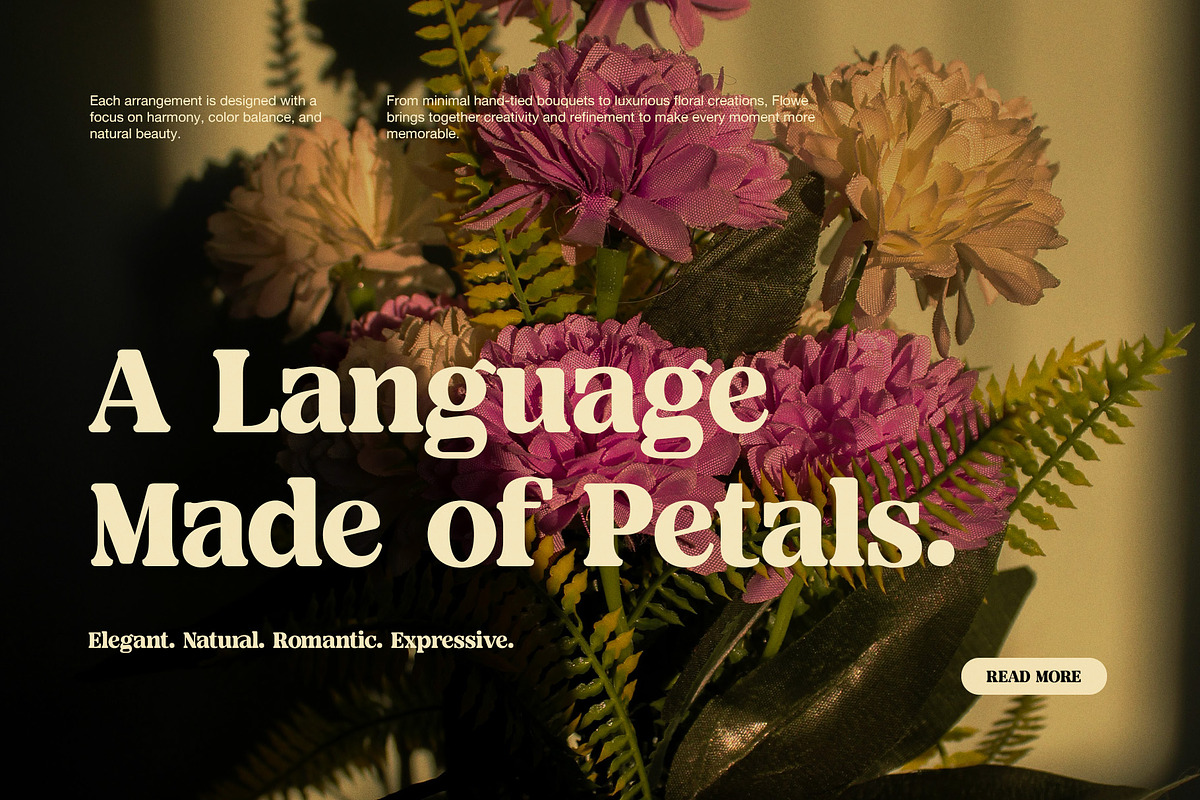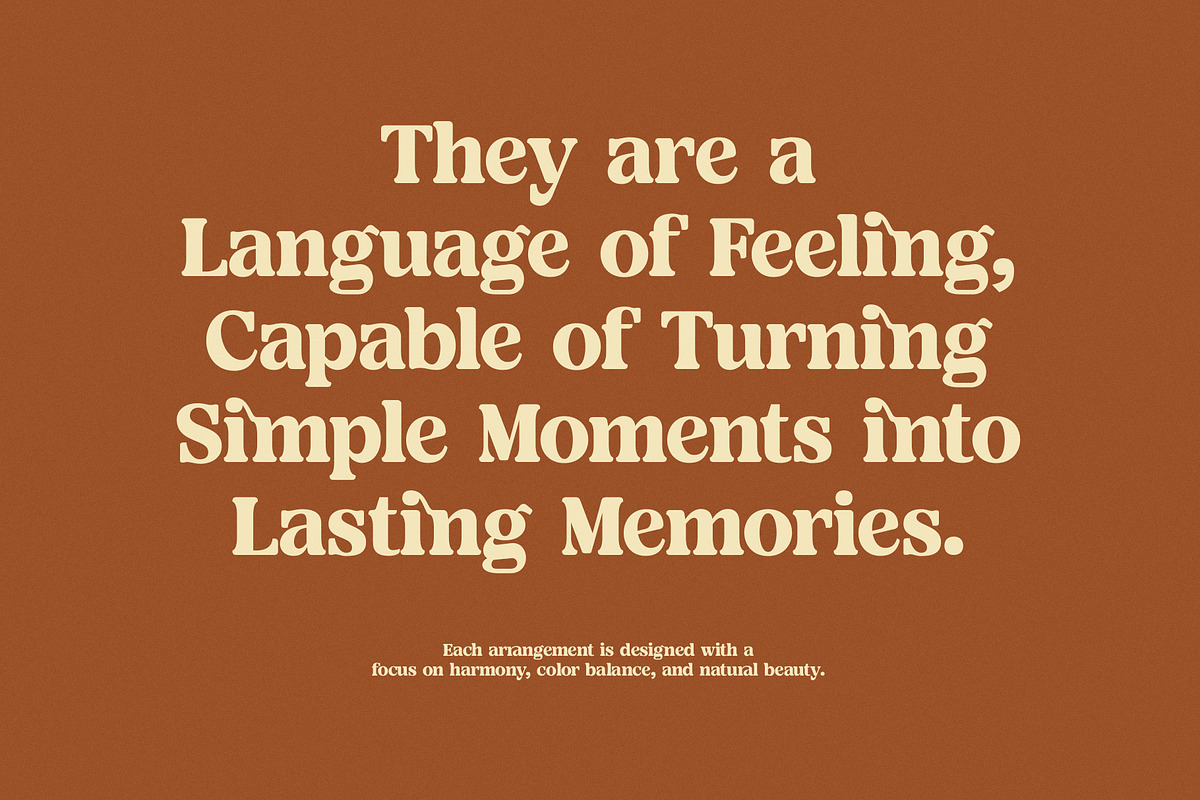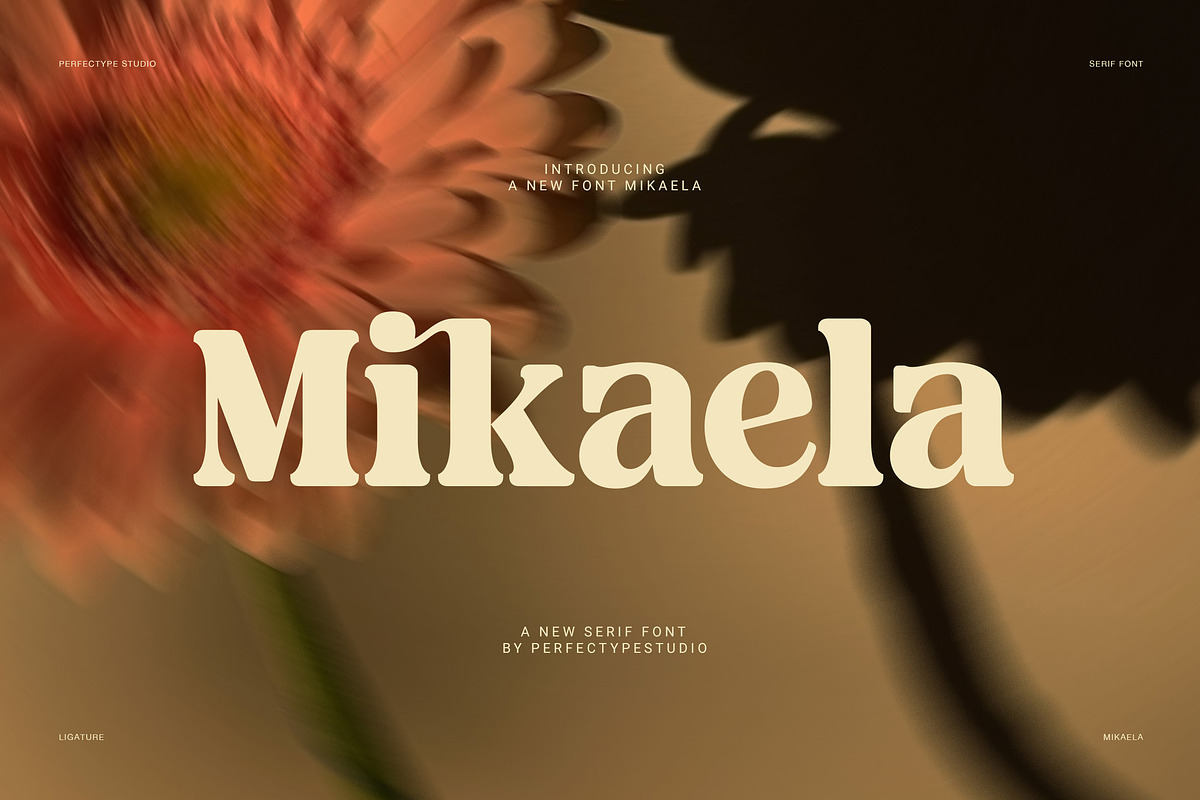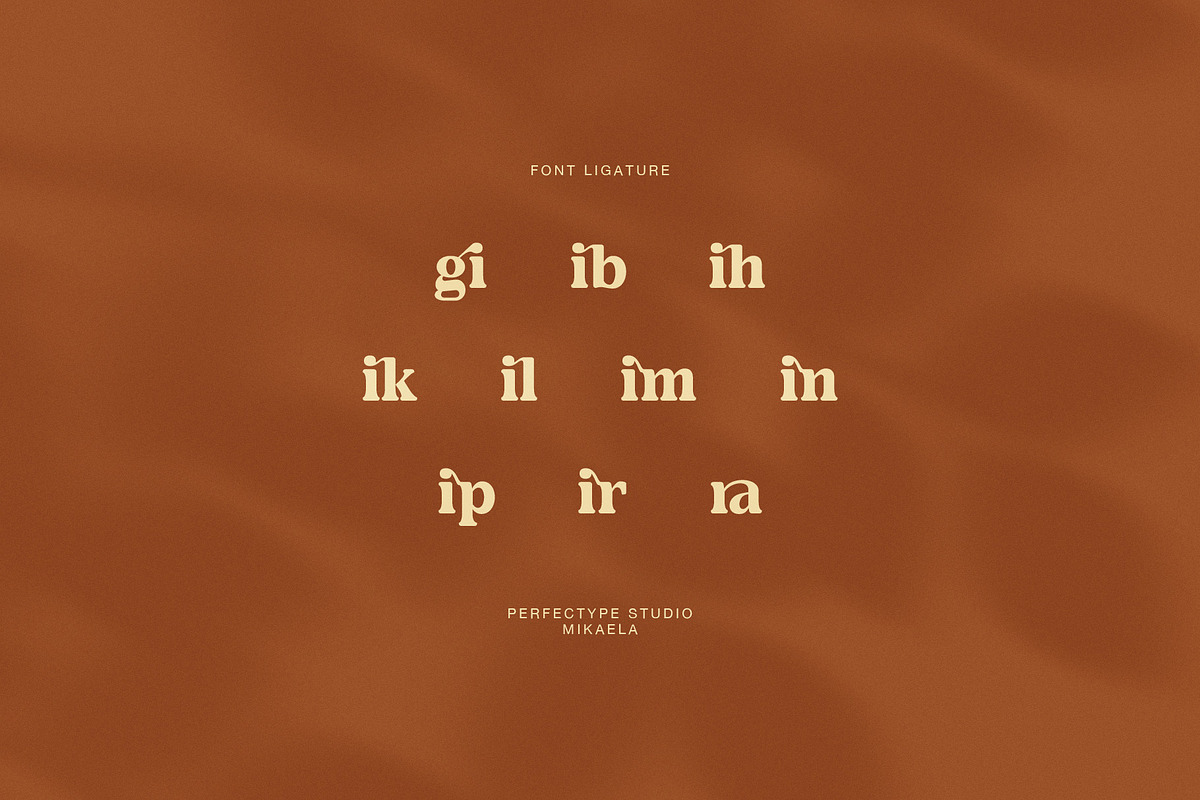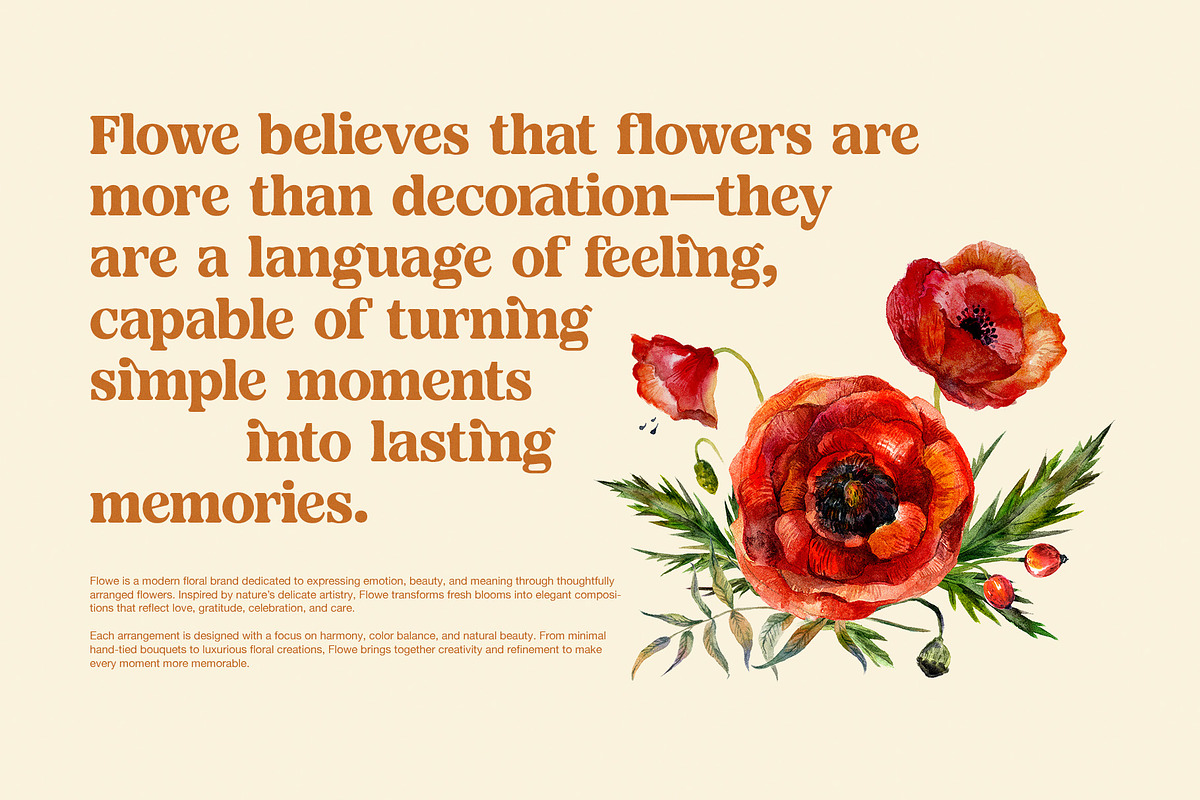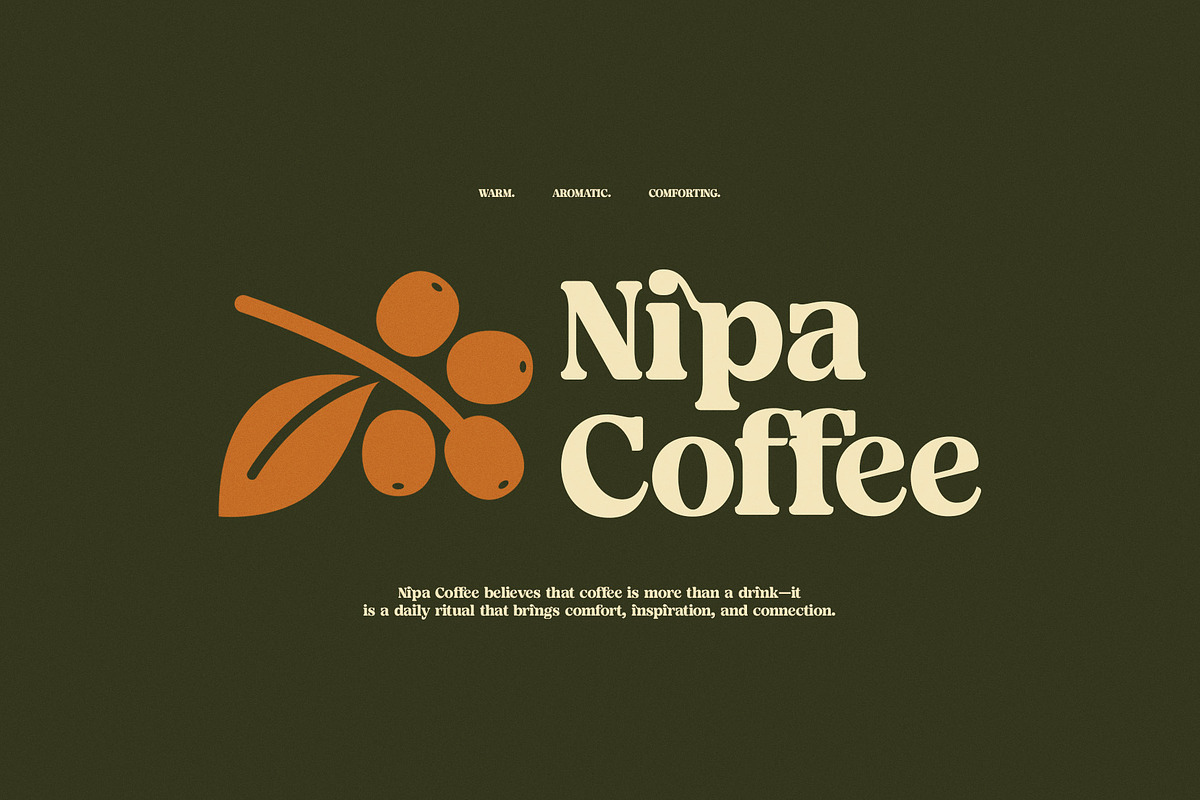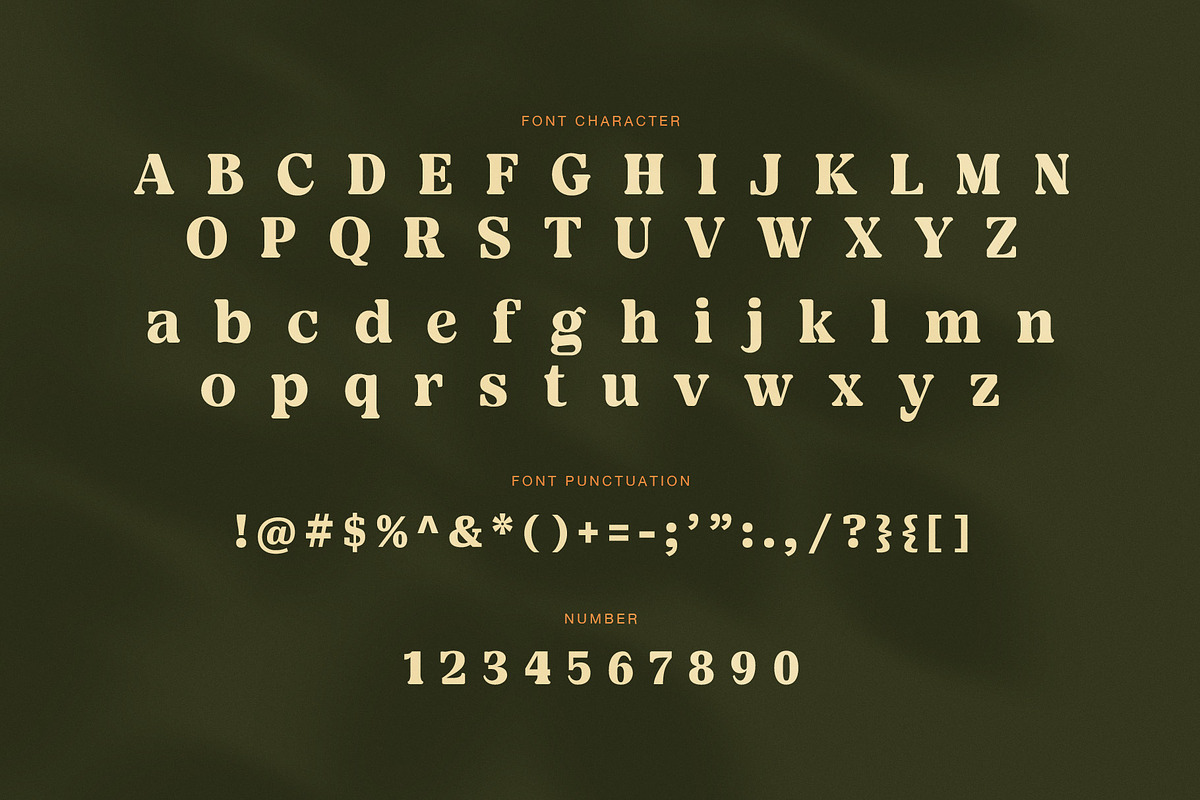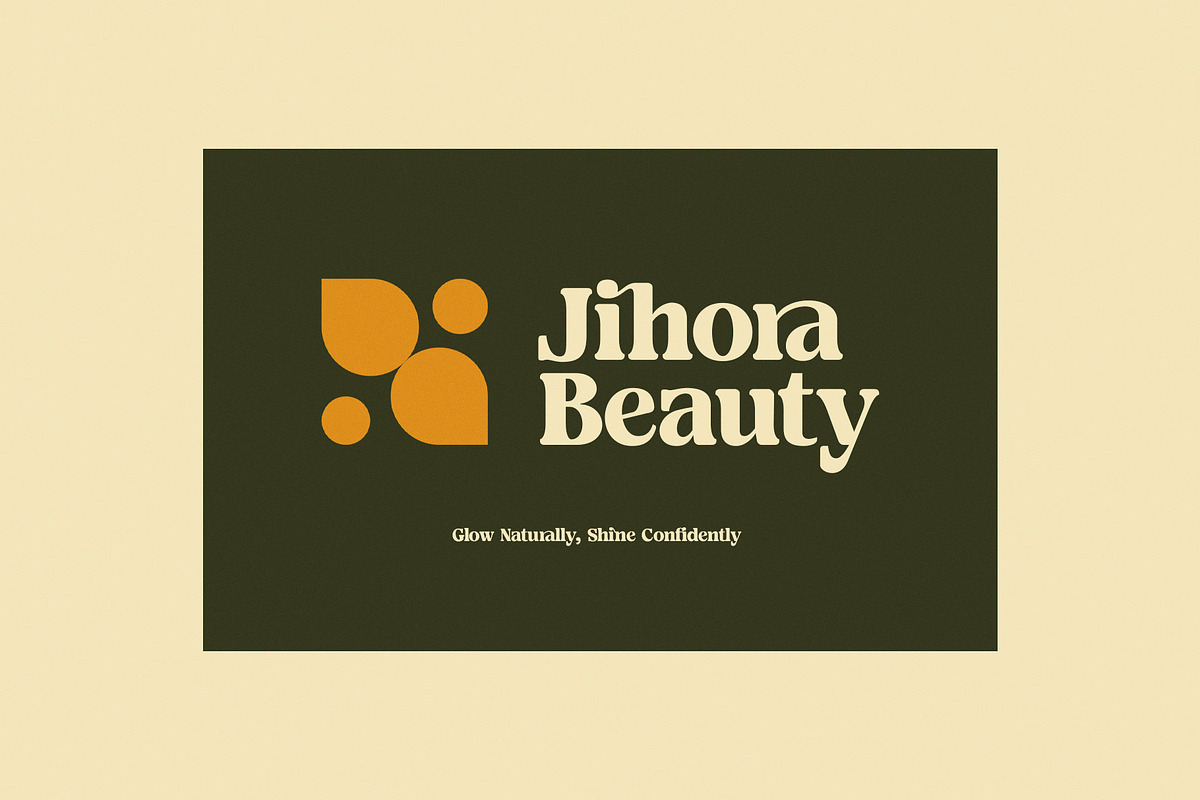
Mikaela Elegant Serif Font
Mikaela Elegant Serif Font is a bold and refined display serif with a warm, modern, and highly memorable character. It blends classic serif structure with soft curves, compact proportions, and tasteful ligature details. As a result, it feels elegant, friendly, and confident at the same time. This font is a strong choice for designers who want display text that looks stylish, readable, and full of charm.
The letterforms of Mikaela have a sturdy and balanced build. Unlike very thin editorial serifs, Mikaela uses fuller shapes and stronger strokes, so it feels more grounded and approachable. At the same time, the serif details keep it polished and premium. Moreover, the rounded counters and smooth joins add warmth, while the overall spacing keeps words clear in large settings. Because of that balance, Mikaela feels both classic and fresh.
Mikaela performs very well across many branding styles. In the preview layouts, it looks strong in coffee branding, floral themes, beauty identity, lifestyle visuals, and emotional quote compositions. Therefore, it suits both commercial and creative projects. It can look cozy and natural in one layout. Meanwhile, it can also feel clean, modern, and elegant in another. That range makes it very useful for branding systems that need both personality and flexibility.
Another key strength is its ligature support. The ligatures help headlines feel smoother and more custom, especially in short names and logo-style words. In addition, the punctuation and number set keep the font looking complete and polished. Because of this, Mikaela is ideal for logos, packaging, labels, posters, menus, social media graphics, and product branding.
Best uses for Mikaela
logo design
coffee branding
beauty branding
floral packaging
product labels
menu design
social media graphics
lifestyle branding
quote posters
display headlines
Why designers will love it
Mikaela Elegant Serif Font gives words a rich and inviting tone. Moreover, it adds warmth without losing elegance. While some serif fonts feel too formal, Mikaela feels softer and more versatile. For that reason, it works beautifully for brands that want a premium look with a more human feel.
If you need an elegant serif font with strong readability, stylish ligatures, and a warm display presence, Mikaela is a smart choice. It brings beauty, comfort, and confidence to every design.